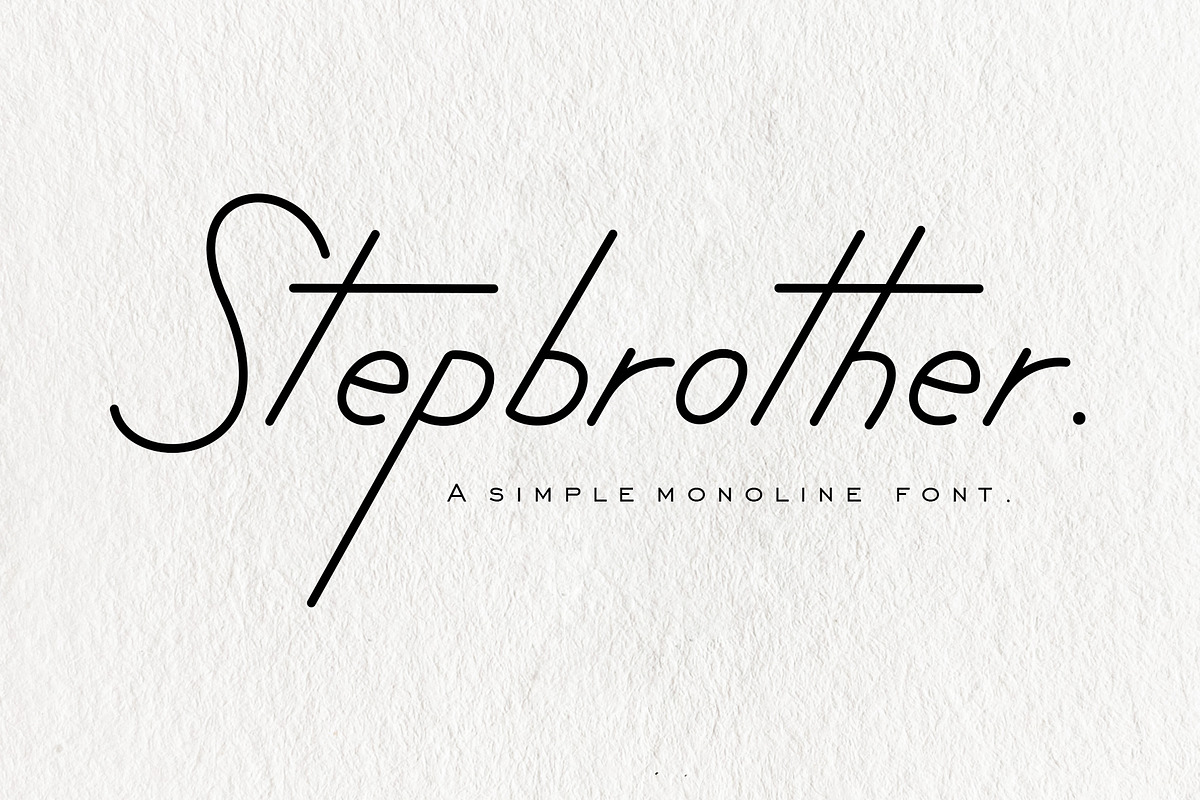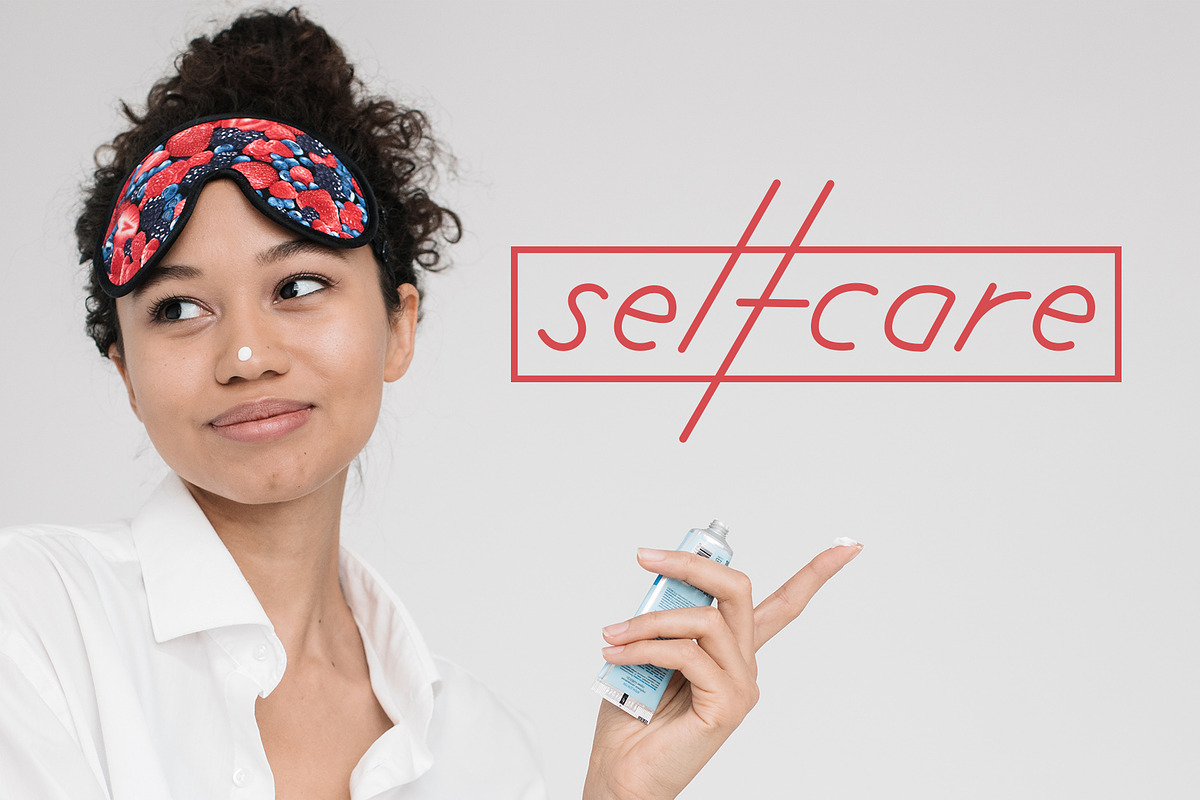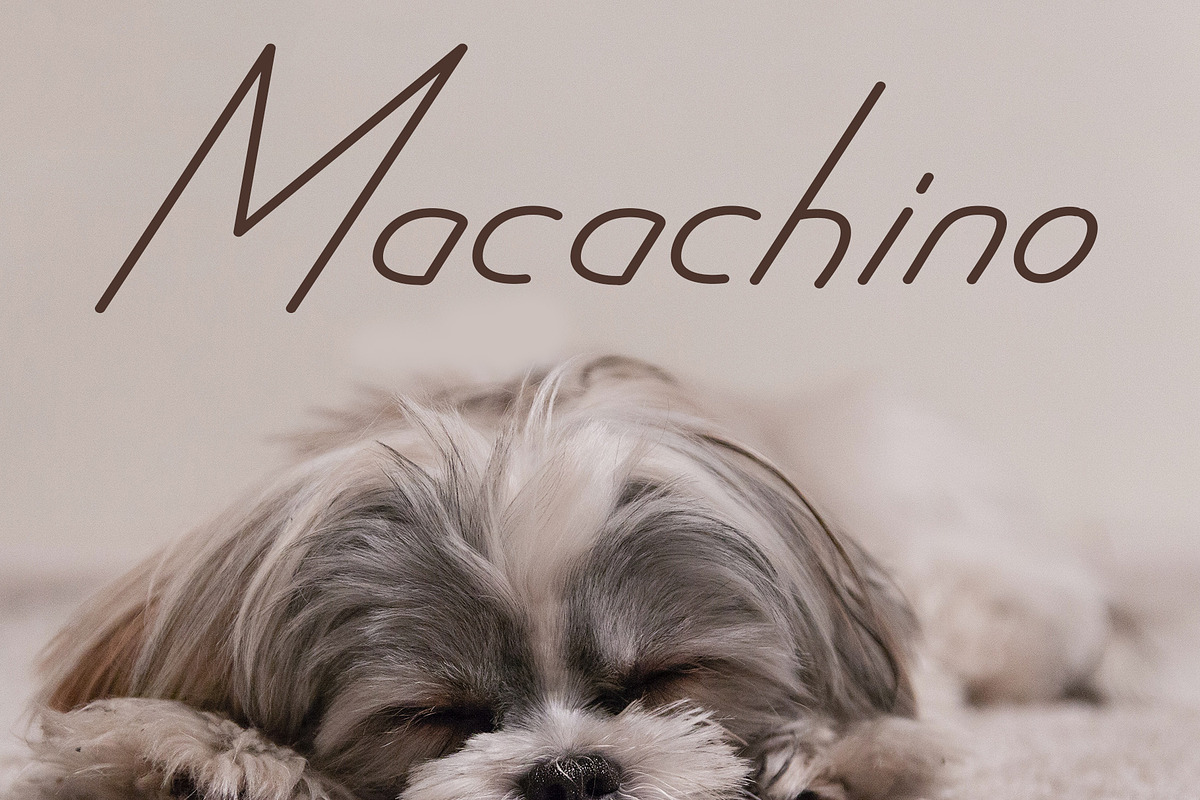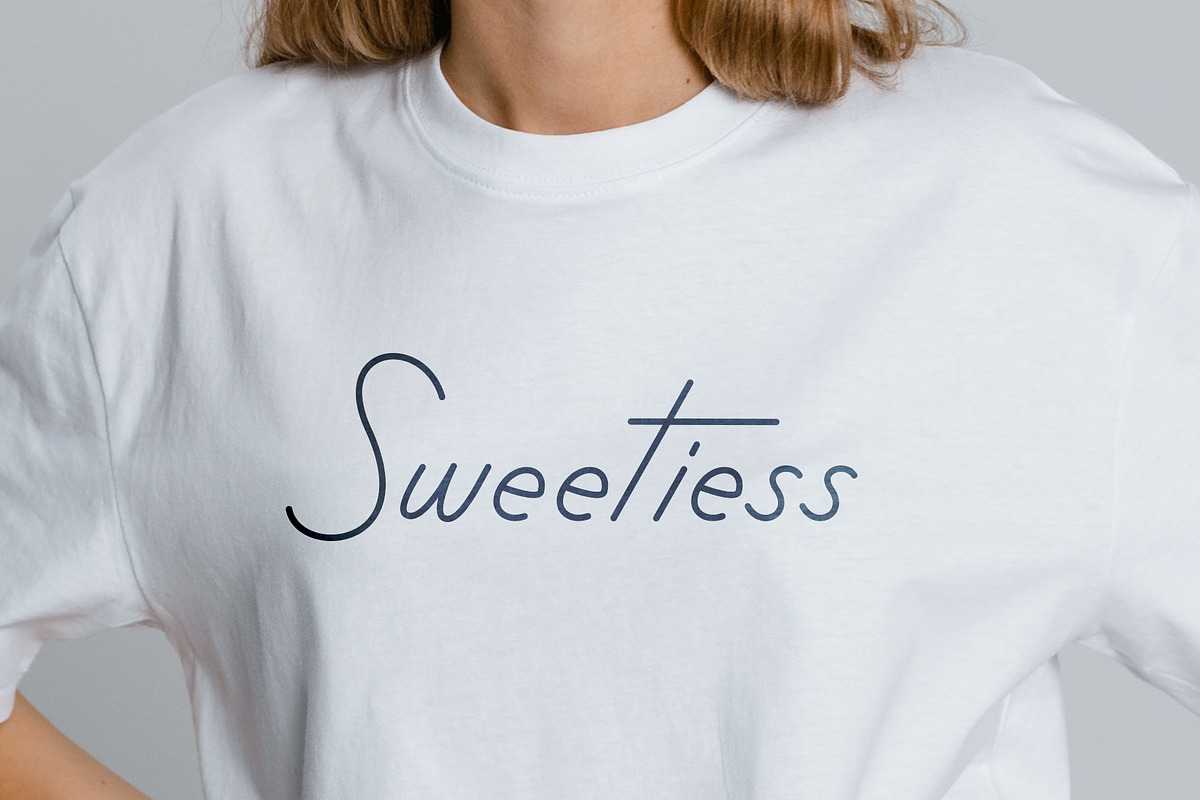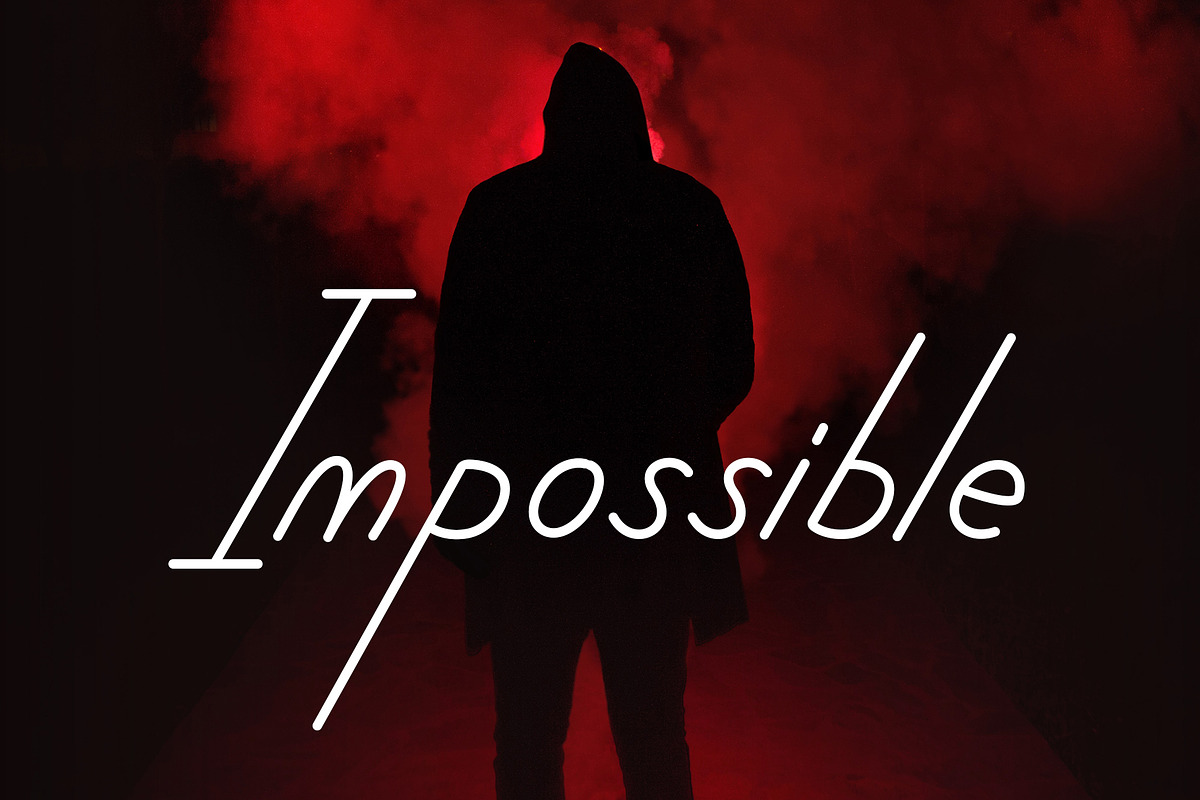
Stepbrother - Simple Monoline Font
Stepbrother is an elegant and modern handwritten font with an italic style. It looks good on wedding invitations, thank you cards, quotes, greeting cards, logos, business cards and any other design that need a touch of style.